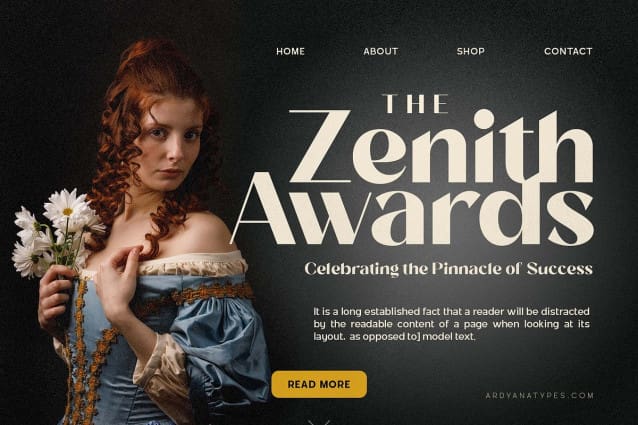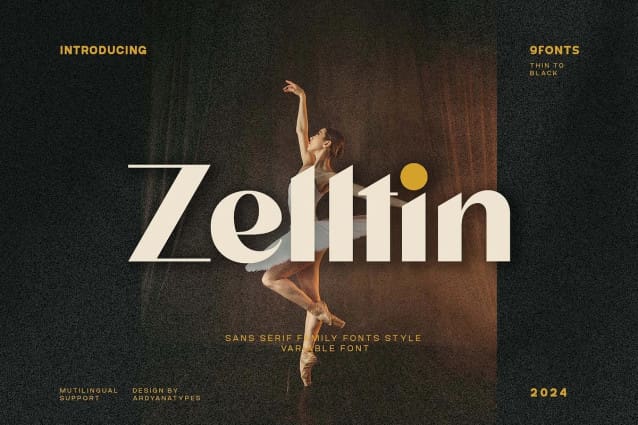
Zelltin Font
Zelltin Font, a sans serif font that blends classic elegance with modern functionality. Specially designed for professional graphic designers, creative agencies, and the film industry, Zelltin Font is the ultimate choice for creating stunning and impactful designs.
With 9 font styles ranging from Thin to Black, along with advanced variable font features, Zelltin offers incredible flexibility for various typographic projects. Whether you’re working on branding and logo design, editorial layouts, movie titles, or advertisement posters, this font ensures your work stands out with elegance and professionalism.